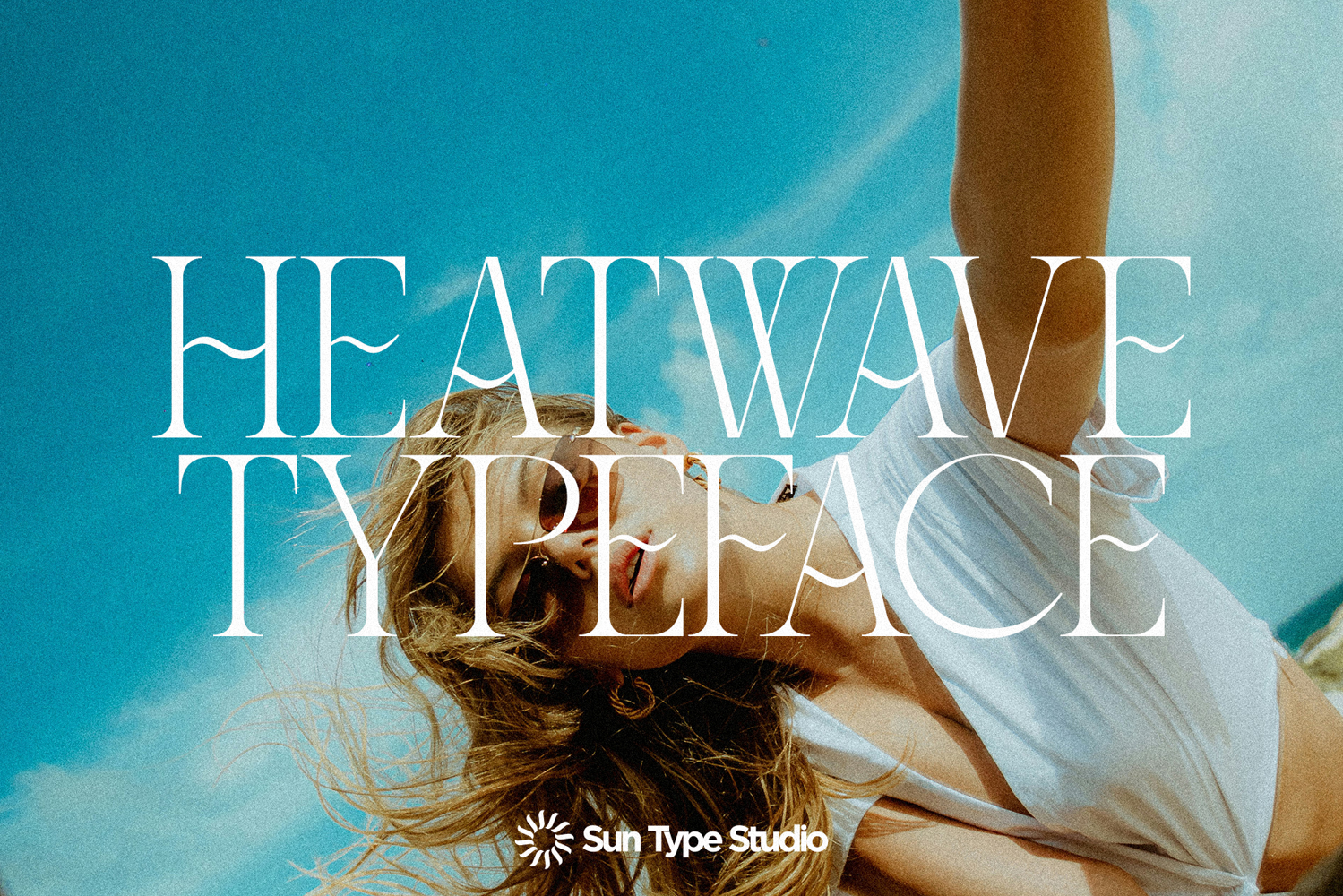
Heatwave - Elegant & Wavy Serif
Heatwave
Heatwave – Elegant Serif is a refined serif typeface designed to capture the feeling of sun-soaked luxury and timeless sophistication. With graceful curves, high-contrast strokes, and modern editorial elegance, Heatwave blends classic romance with contemporary style — perfect for luxury branding, fashion campaigns, wedding designs, magazine layouts, and premium packaging.